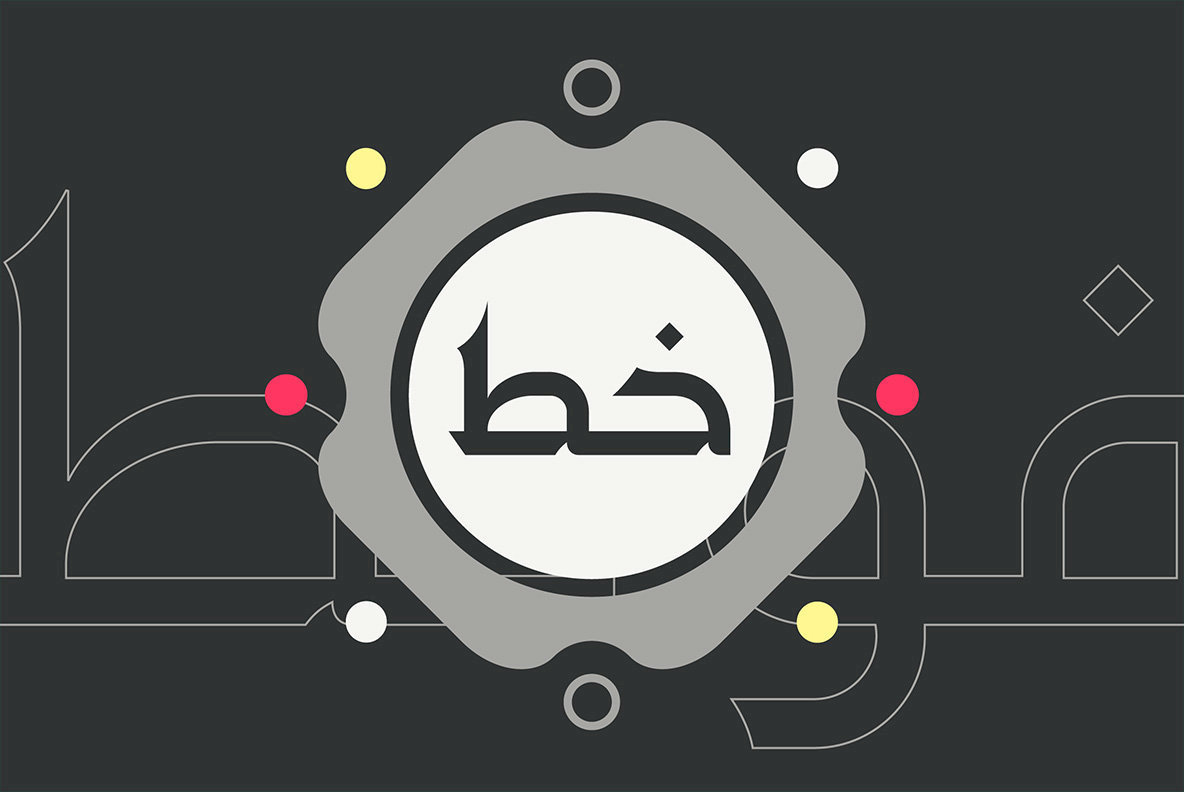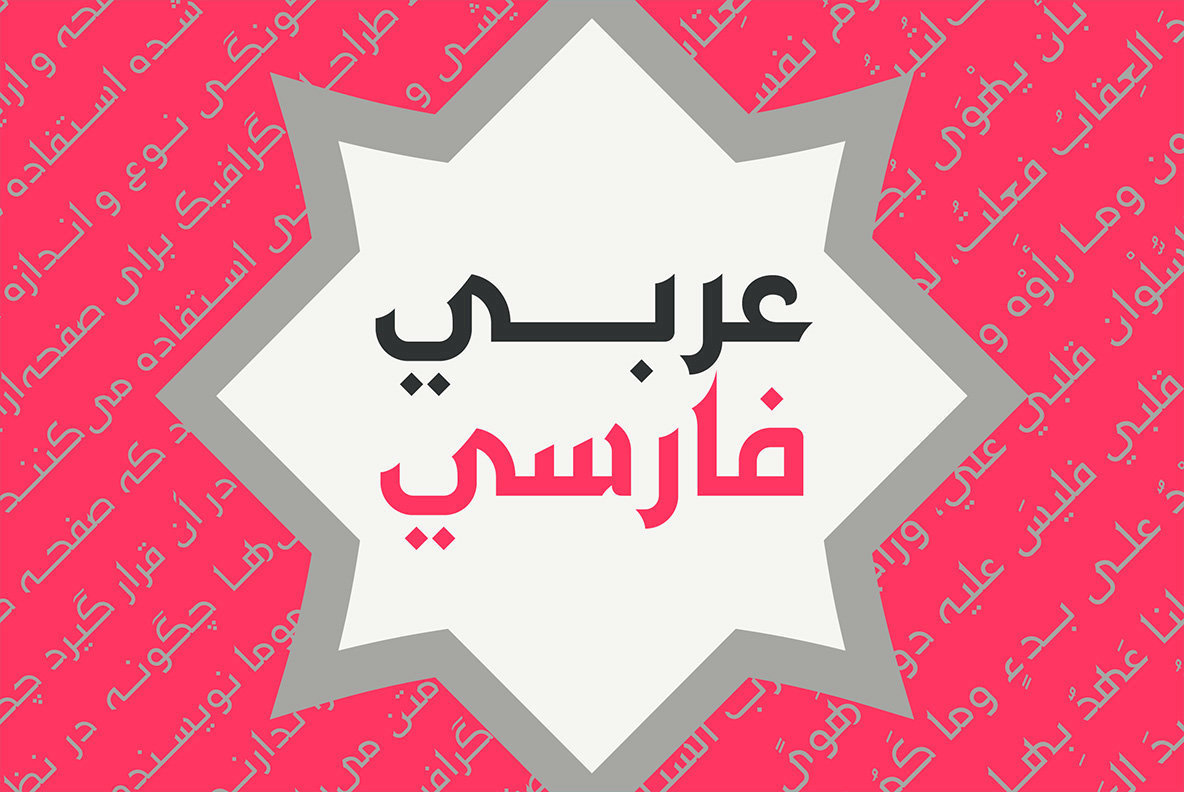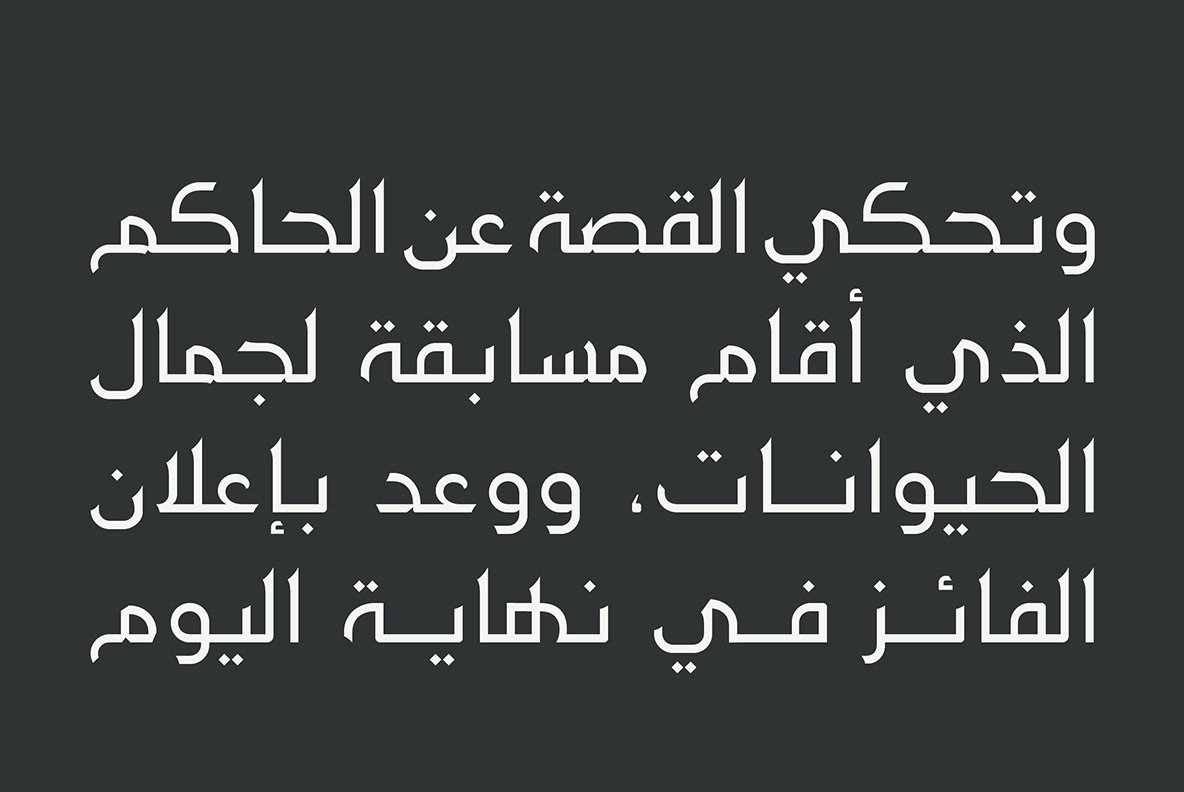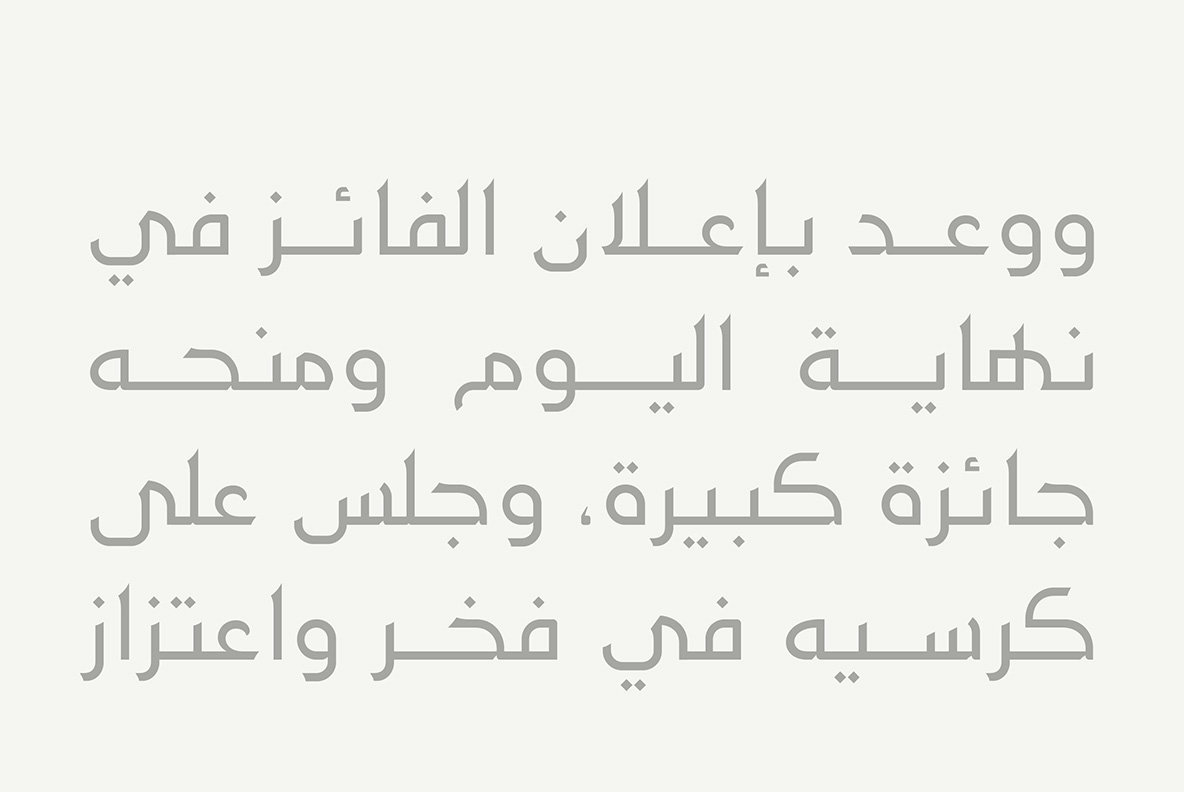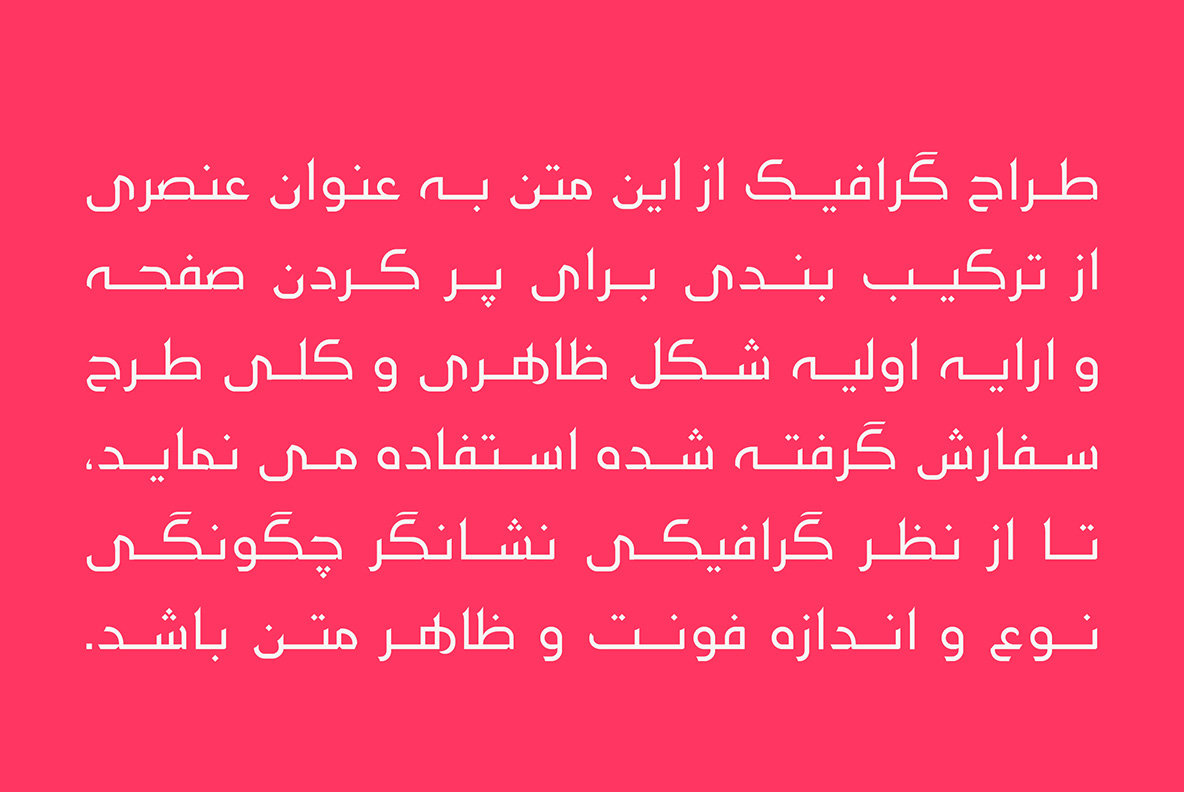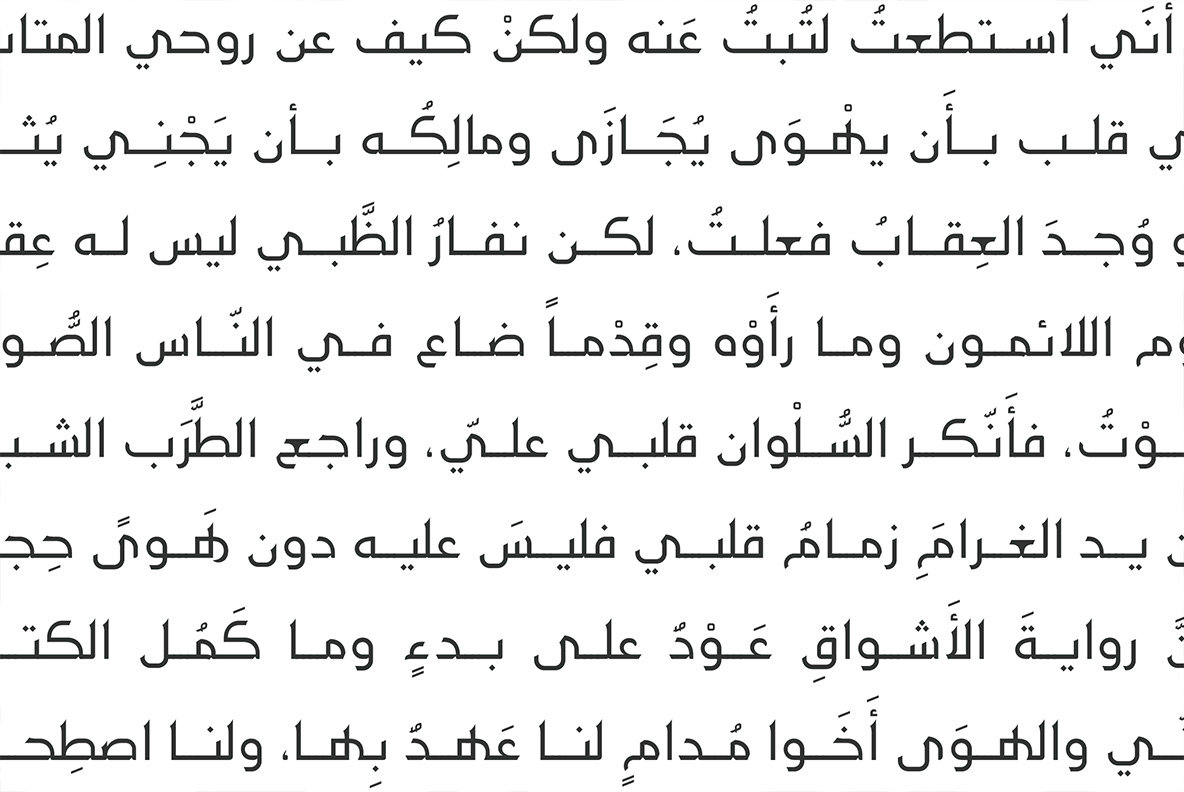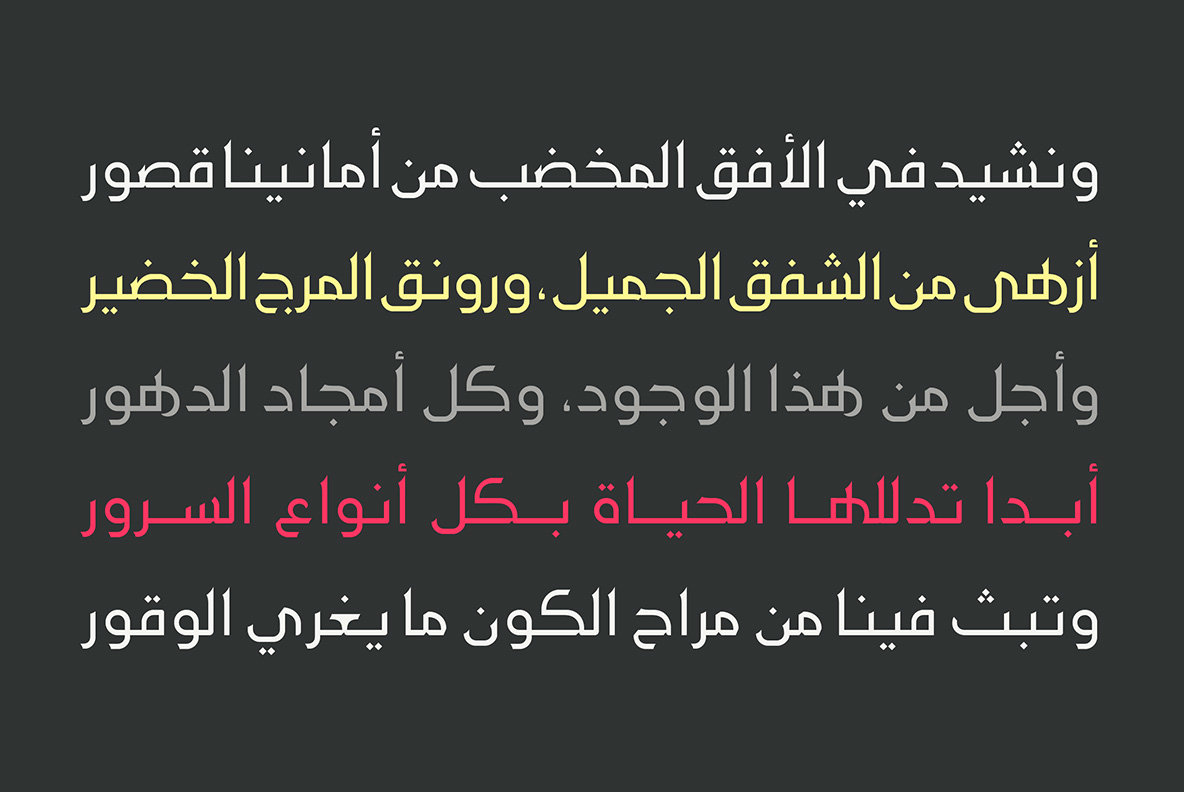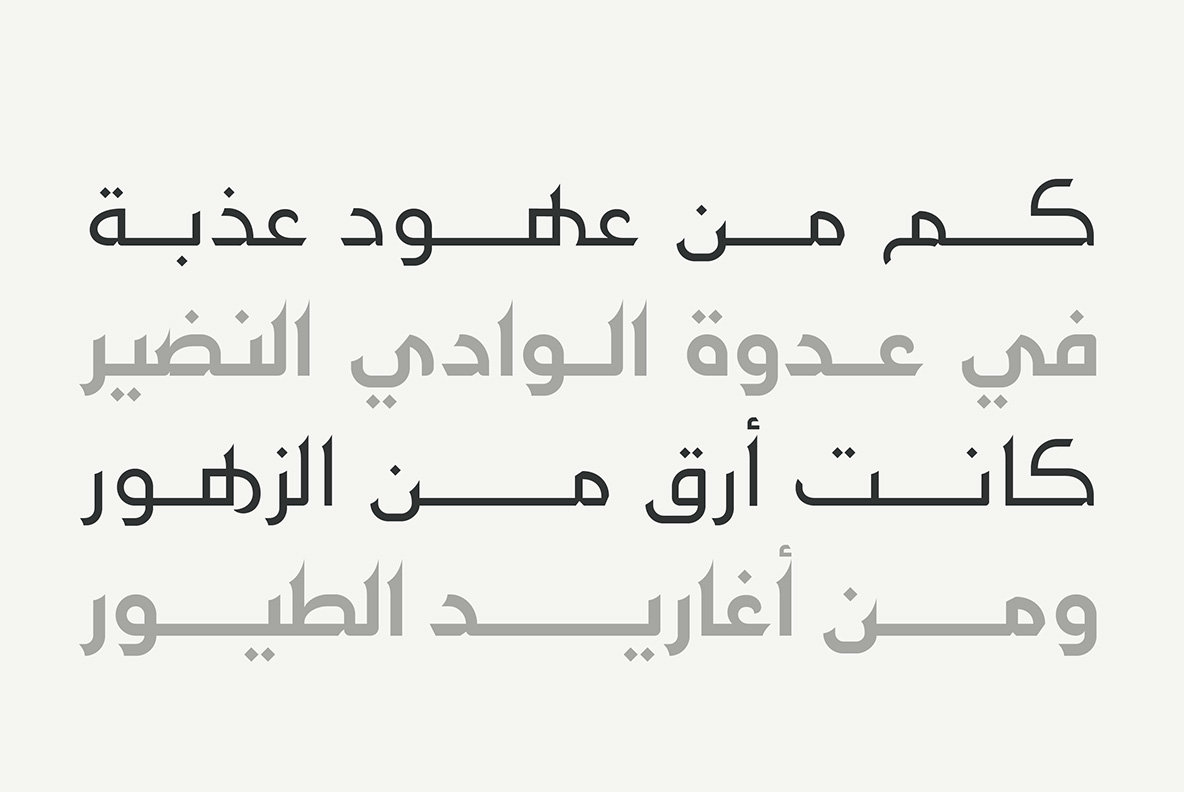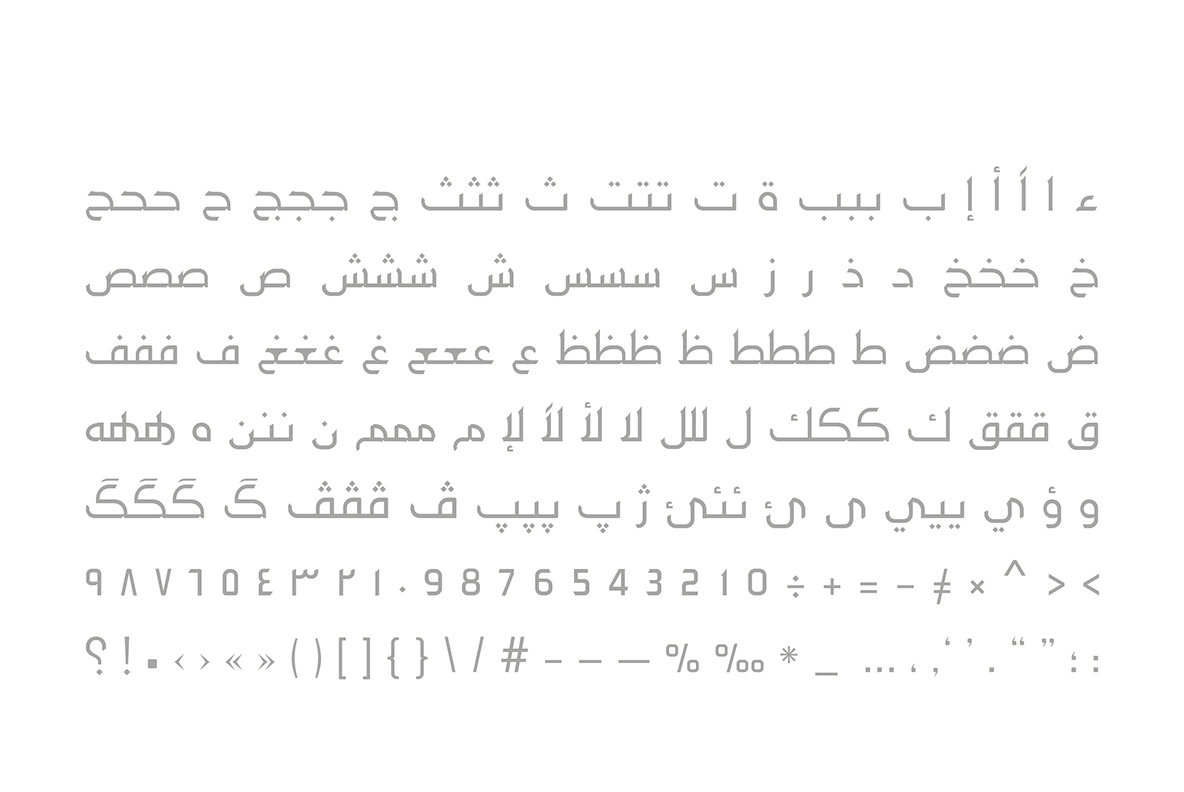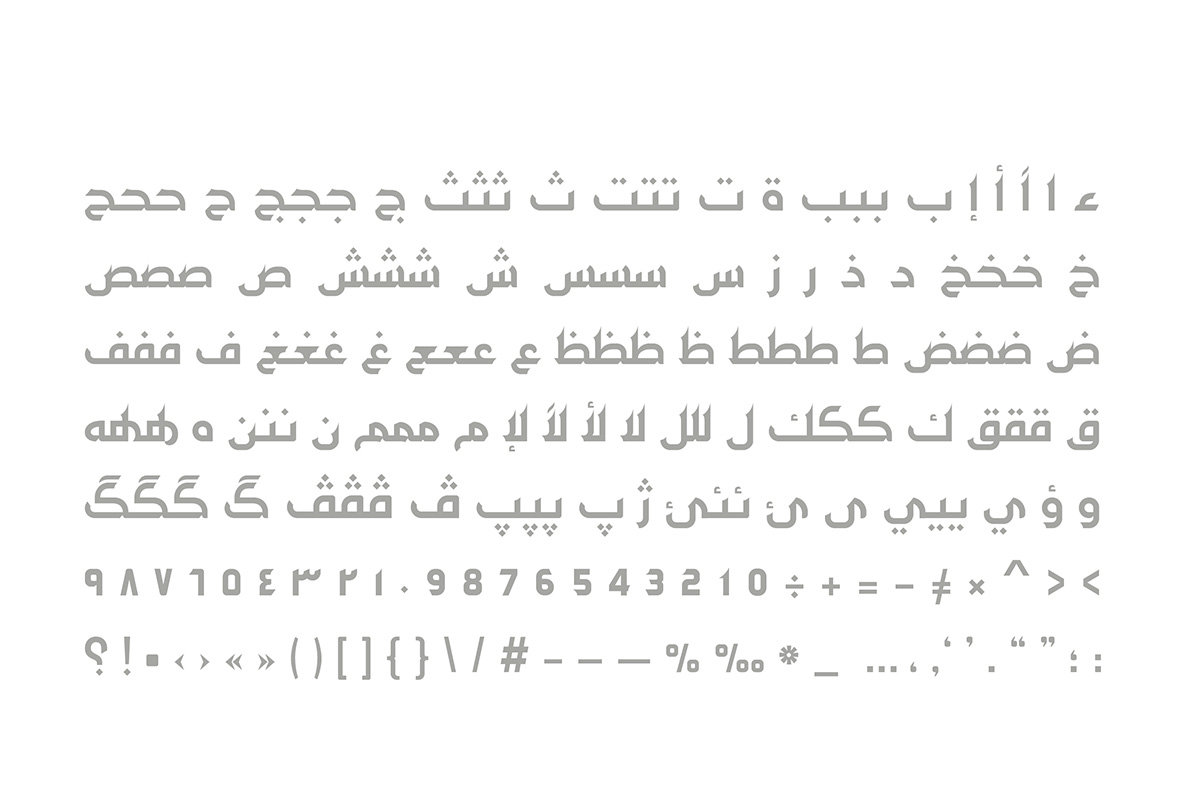
Maharah Font
Maharah is an Arabic typeface that combines authenticity with elegance and modernity. The word Maharah is the Arabic for skill. The font suits both web design and print and it comes in two weights; regular and bold.